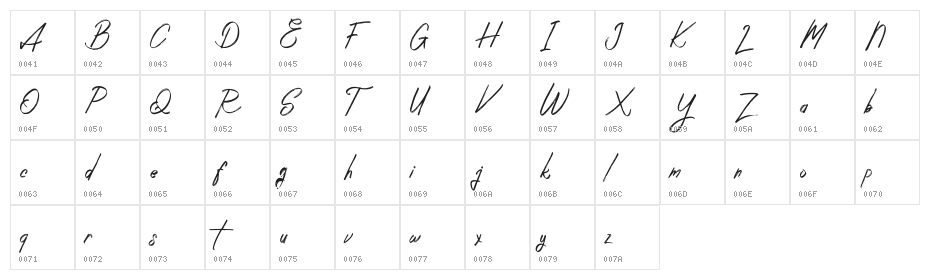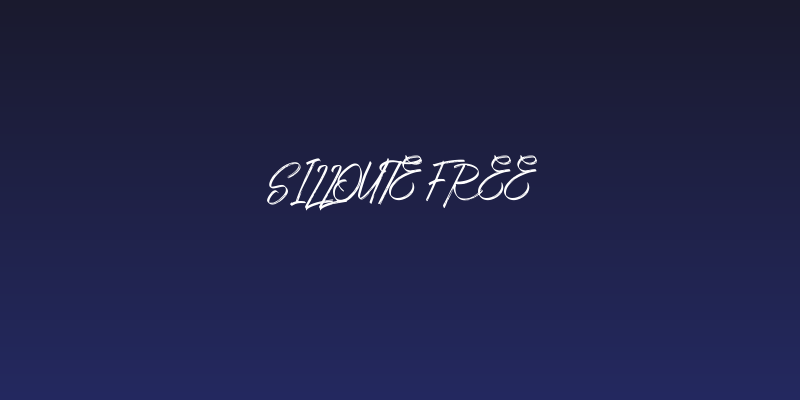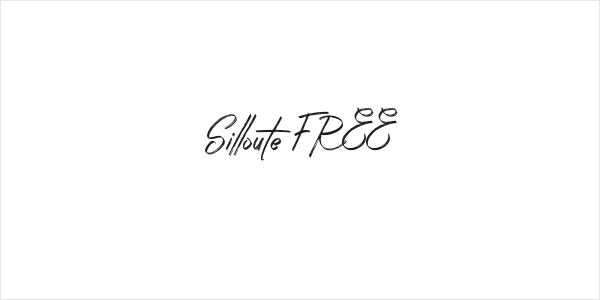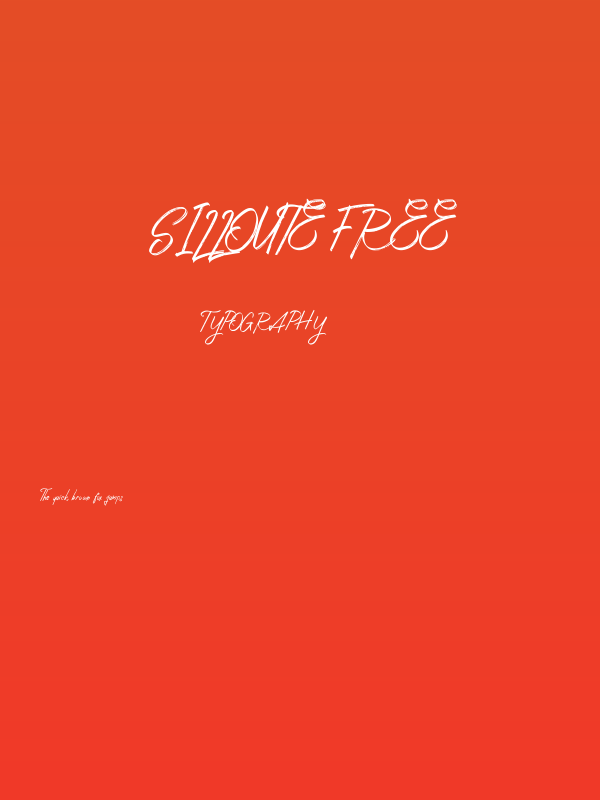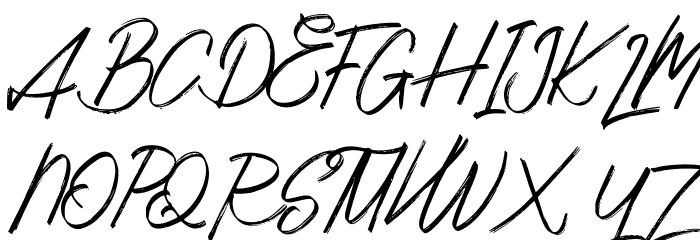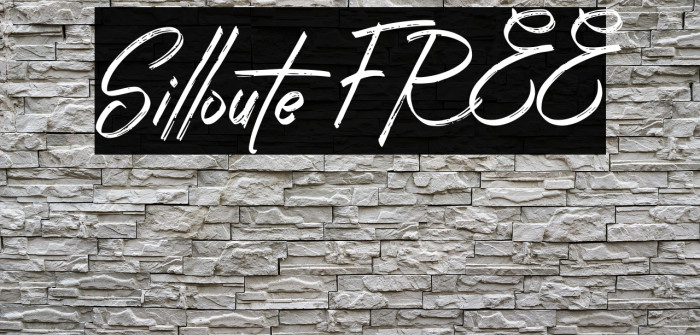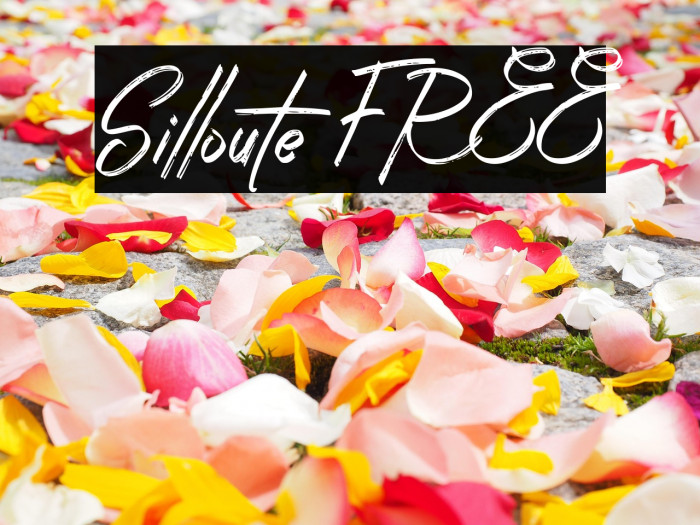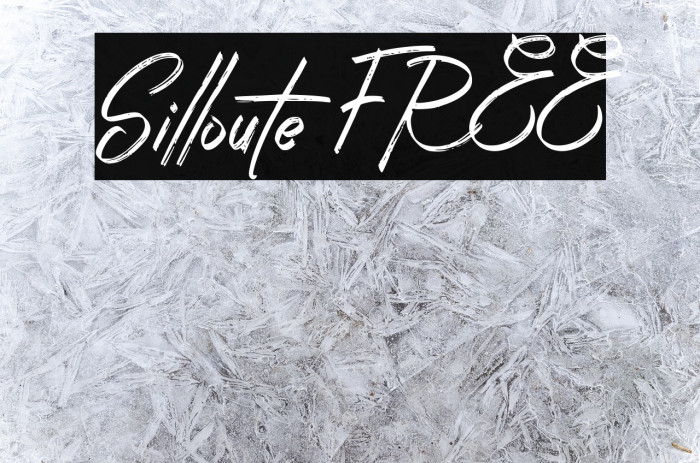
Silloute FREE Font
Silloute FREE Description
This font features a dynamic and expressive script style, characterized by its fluid and flowing letterforms. The strokes are varied, with a mix of thick and thin lines that create a sense of movement and elegance. The uppercase letters are bold and prominent, while the lowercase letters maintain a consistent style with a slightly more delicate appearance. The font includes a full set of uppercase and lowercase letters, numerals, and a selection of special characters, making it versatile for various design needs. Its handwritten quality adds a personal touch, making it suitable for creative and artistic projects.
| Proposed Projects | Ideal for wedding invitations, greeting cards, branding, and artistic projects that require a personal touch. |